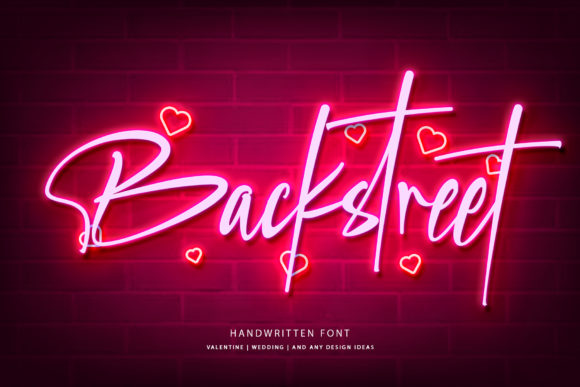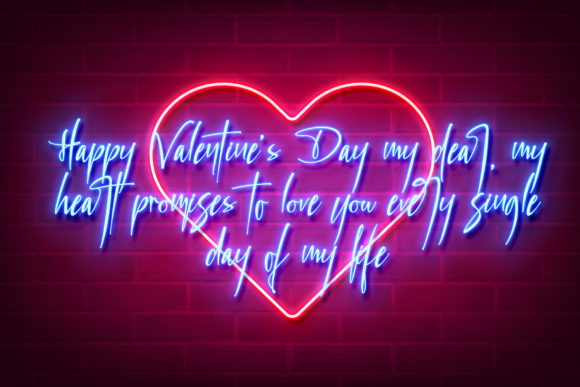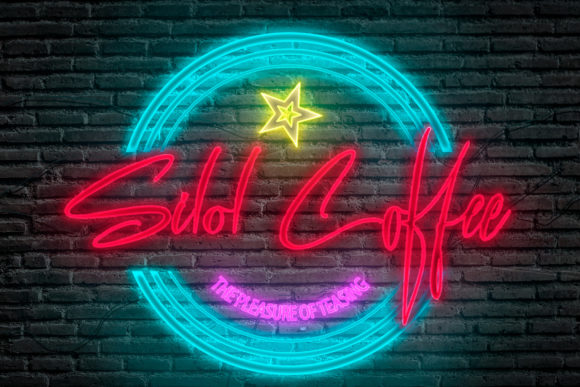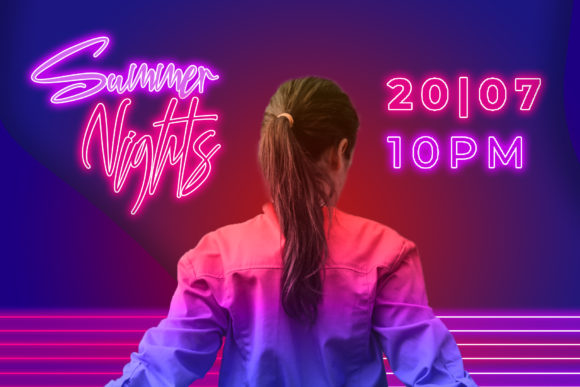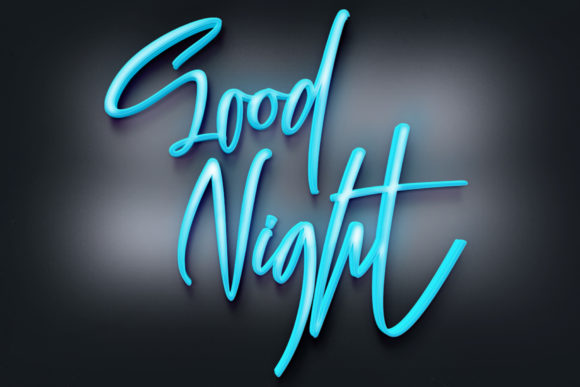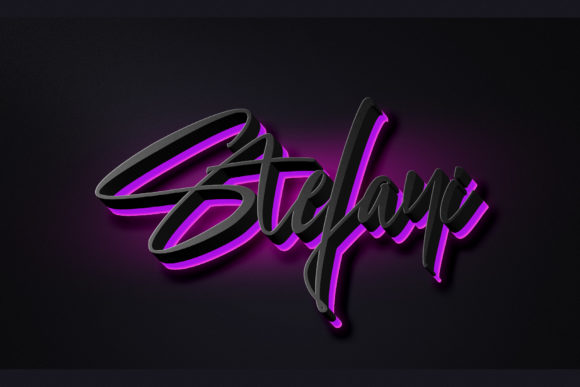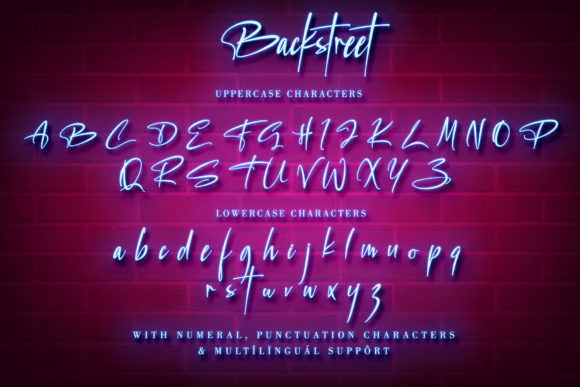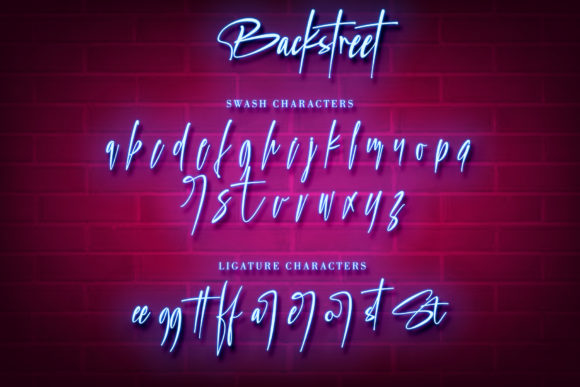
Backstreet Font
About Backstreet Font
Backstreet is a purely handwritten typeface with its own unique characteristics. It has an elegantly feminine style with great readability!